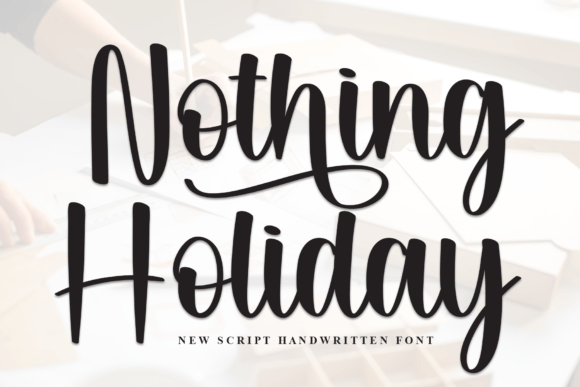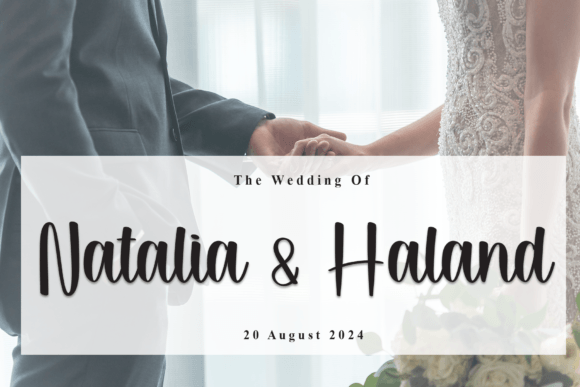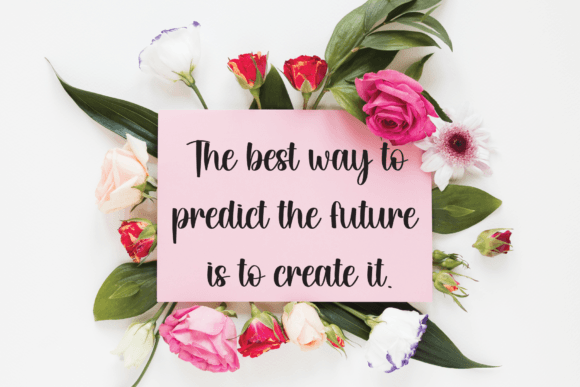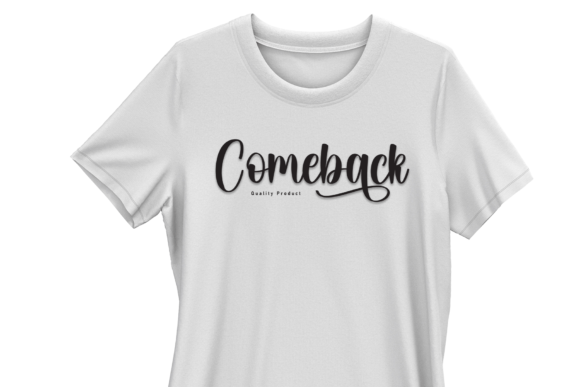
Nothing Holiday Font Font
About the Nothing Holiday Font Font
We are excited to introduce Nothing Holiday Font Font, a must-have typeface for any serious designer. Nothing Holiday is a stylish and incredibly elegant script font. It looks stunning on wedding invitations, thank you cards, quotes, greeting cards, logos, business cards and every other design which needs a handwritten touch.
Its elegant, slightly calligraphic style makes it ideal for projects requiring a touch of sophistication and personality, such as wedding stationery, luxury branding, or high-end product packaging. It excels in applications where legibility is less critical than visual impact, like short headlines or impactful quotes. Avoid using it for body text or UI elements where readability is paramount.
Nothing Holiday pairs well with clean sans-serif fonts like Helvetica or Open Sans for a balanced contrast, or with a more playful geometric sans-serif for a modern feel. A classic serif like Garamond can add a layer of timeless sophistication. Avoid pairing it with other script fonts, as this can create visual clutter.
The font’s core personality is sophisticated and elegant, yet approachable. It projects a sense of refined charm without feeling overly formal or stiff, making it suitable for brands that value quality, craftsmanship, and a touch of timeless style.